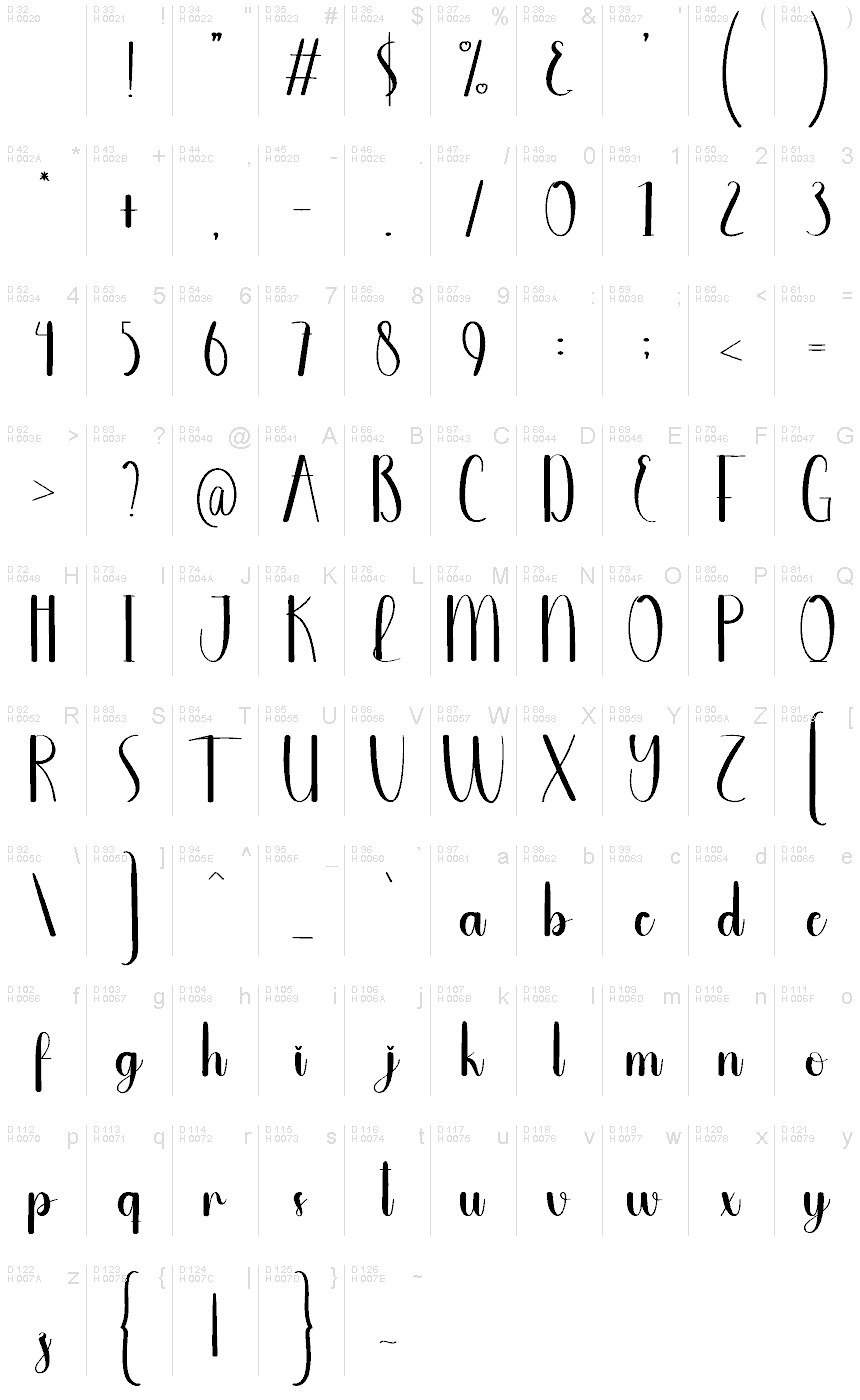
Welcomeday
Welcomeday font by Andi Moz is a free handwritten font with an elegant and fluid nature. The sophisticated lettering showcases vintage charm and artistic flair, making this typeface pleasant when viewed in short/medium text lengths. Reading won’t be as beneficial for long texts because Welcomeday isn’t the most legible, and is more suitable for titles, branding projects, and packaging.
Other recommended use cases include: blogs; invitations; website headers; no-container logos or with containers like badges or stamps; bags; T-shirts or other clothing items; social media banners that focus on aesthetics over complex ideas; app icons backgrounds or website favicons.